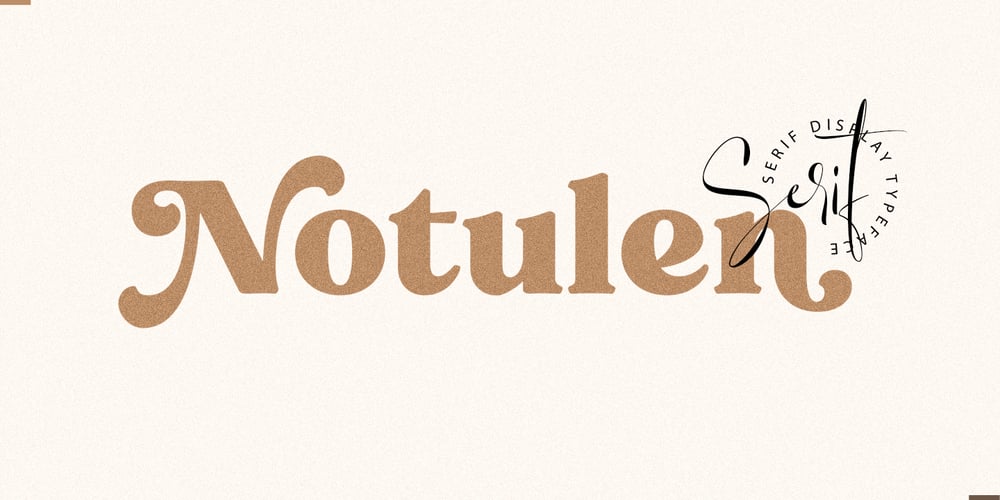
Notulen Serif Display Font Family was designed by Sarwo Edi and published by Siwox Studios. Notulen Serif Display contains 1 styles and family package options. Notulen is an Serif Display Typeface, Extra Bold style and nicely balanced curves. Notulen is inspired by Classic typography and now come with modern serif nuance. Short serifs with slightly rounded corners make this font legible at small points.Having several alternative letter variations makes it easy to work on all design projects and works perfectly for Logos, Headlines, Posters, Packaging, T-shirts, Postcards, Invitation, Wedding Sign, Sign Painting, Signboard, and much more.Thank you,